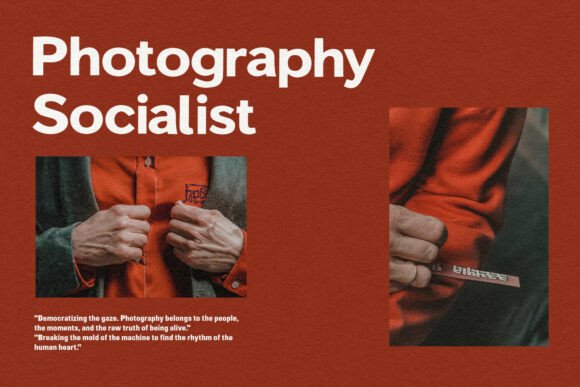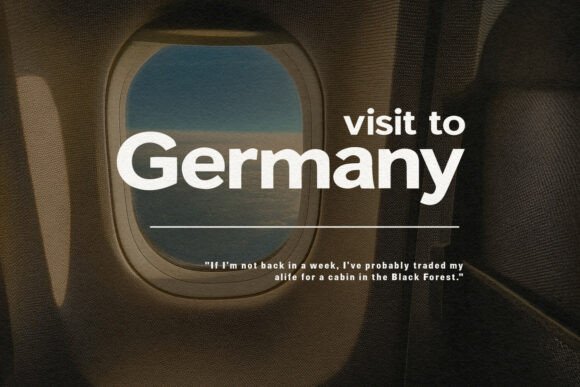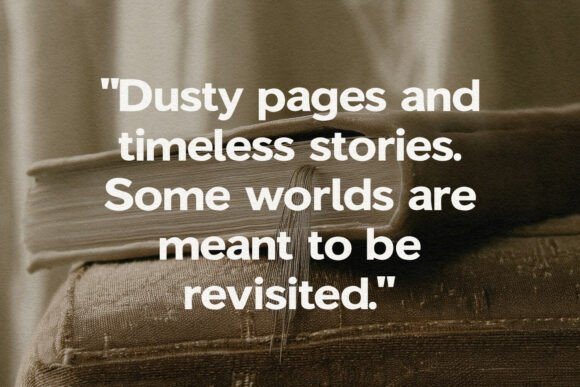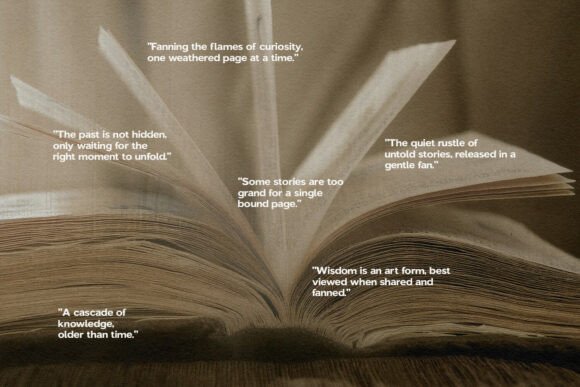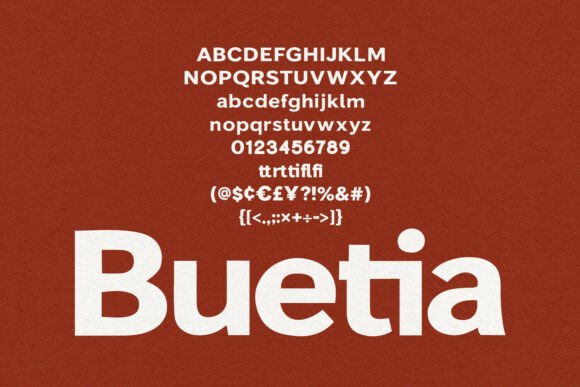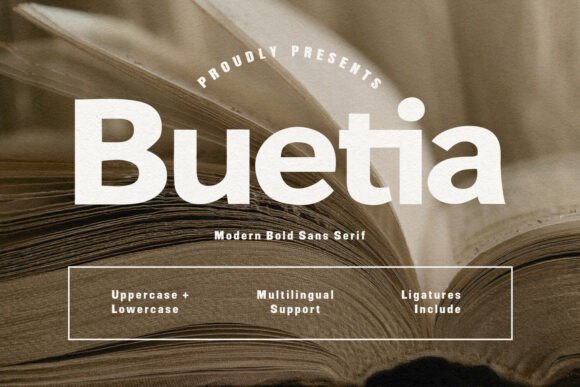
Introducing Buetia Font: The Epitome of Modern Bold Sans Serif
In the realm of typography, a font can make or break the visual appeal of a design. For those seeking a typeface that embodies both contemporary minimalism and classic sophistication, look no further than Buetia Font. This high-impact, modern bold sans serif font is meticulously crafted to strike the perfect balance between clean, minimalist lines and a robust, solid weight, making it an ideal choice for designers and crafters aiming to elevate their projects.
Design Characteristics of Buetia Font
Buetia Font boasts a range of design characteristics that set it apart from other typefaces. Its clean lines and solid weight are specifically designed for maximum legibility and visual strength. This makes Buetia an excellent choice for a variety of applications, including editorial layouts, cinematic projects, and branding initiatives. The font’s versatility allows it to seamlessly integrate with a wide array of design aesthetics, providing a “timeless” feel that enhances the overall visual impact of any project.
Applications of Buetia Font
The versatility of Buetia Font makes it suitable for numerous design applications. Here are a few areas where Buetia truly shines:
• Editorial Layouts: For magazines, newspapers, and digital publications, Buetia’s bold presence can help draw readers’ attention while maintaining readability.
• Cinematic Projects: In movie posters, trailers, and title sequences, Buetia’s strong and modern aesthetic can add a layer of sophistication and grandeur.
• Branding: For companies looking to make a statement, Buetia can serve as a powerful tool in logo design, packaging, and marketing materials, offering a distinctive and memorable visual identity.
Why Choose Buetia Font?
Choosing a font for a project can be a daunting task, given the vast array of options available. However, Buetia Font offers several compelling reasons to consider it for your next design:
• Legibility: Despite its bold nature, Buetia maintains exceptional legibility, ensuring that messages are conveyed clearly and effectively.
• Versatility: Its ability to pair well with photography and textured backgrounds makes Buetia a versatile choice for a wide range of design projects.
• Timeless Appeal: Buetia’s design avoids fleeting trends, offering a timeless quality that ensures your work remains relevant and stylish for years to come.
Pairing Buetia Font with Design Elements
One of the key advantages of Buetia Font is its compatibility with various design elements. Here are some tips on pairing Buetia with photography and textured backgrounds:
• Photography: Buetia’s bold and clean design complements photography by providing a striking contrast that can help focus attention on key messages or visual elements.
• Textured Backgrounds: The font’s solid weight ensures it stands out against complex or busy backgrounds, creating a visually appealing balance between text and design.
Buetia Font represents a significant addition to the world of typography, offering designers and crafters a powerful tool for creating visually stunning and impactful designs. Its unique blend of modern boldness and classic sophistication, combined with its versatility and legibility, makes it an excellent choice for a wide range of applications. Whether you’re working on editorial layouts, cinematic projects, or branding initiatives, Buetia Font is poised to elevate your designs to new heights.